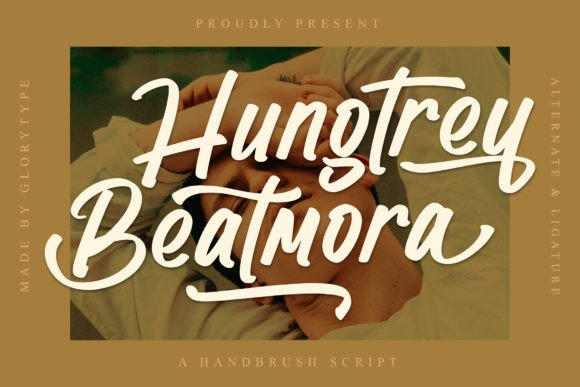
Welcome to the world of Hungtrey Beat - a script font that will enchant your projects and leave a lasting spell on your audience. Dive into a handwritten masterpiece crafted to capture the essence of personal touch and artistic flair. Designed by the visionary team at Glorytype Studio, Hungtrey Beat is more than just a font - it's an experience that captivates and inspires.
Whether you're designing quotes for social media, creating eye-catching packaging for your products, or crafting heartfelt invitations, Hungtrey Beat will add a touch of magic to every letter. Its flowing curves and vibrant personality will make your words come alive, leaving an impression that lingers in the minds of your readers.
Step into a world where creativity thrives, and let Hungtrey Beat paint your words onto the canvas of your imagination. Its versatility allows you to explore endless possibilities. Envision your social media posts transforming into captivating works of art, your product packaging exuding a touch of exclusivity, and your invitations radiating warmth and charm. Hungtrey Beat is the key to unlocking a new realm of design, where your ideas take center stage.
With Hungtrey Beat, you'll discover a font that speaks from the heart. Its characters dance across the page, carrying your message with grace and style. Experience the joy of adding a personal touch to your creations, knowing that each word carries a piece of your soul. Let Hungtrey Beat be your voice, expressing your heartfelt emotions with every stroke.
So embrace the allure of Hungtrey Beat and embark on a creative journey like never before. Let your imagination roam free, allowing your designs to blossom into mesmerizing works of art. The world is waiting to witness your creative genius. Unleash the power of Hungtrey Beat and leave your mark on the world.